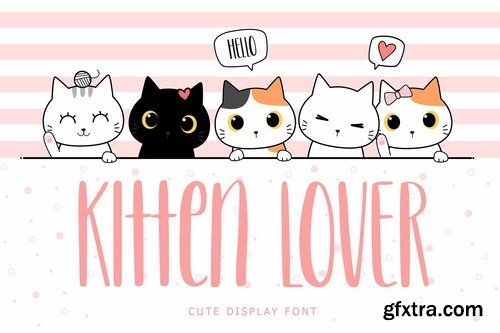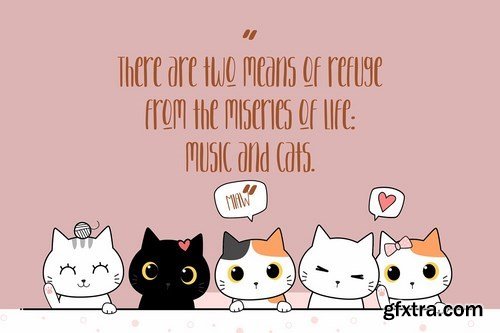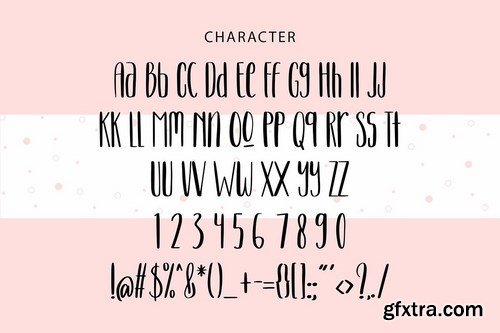
Kitten Lover Cute Display Font, can make your text appear playful, excited, and modern!
Kitten Lover Cute Display Font is perfect for cute and playful branding projects, logo, petshop and animal-related projects, social media posts, advertisements, product packaging, T-shirt design, product designs, label, photography, watermark, invitation, stationery, and any projects. What’s Included: OTF/TTF/WOFF Web Fonts Works on PC & Mac Simple installations